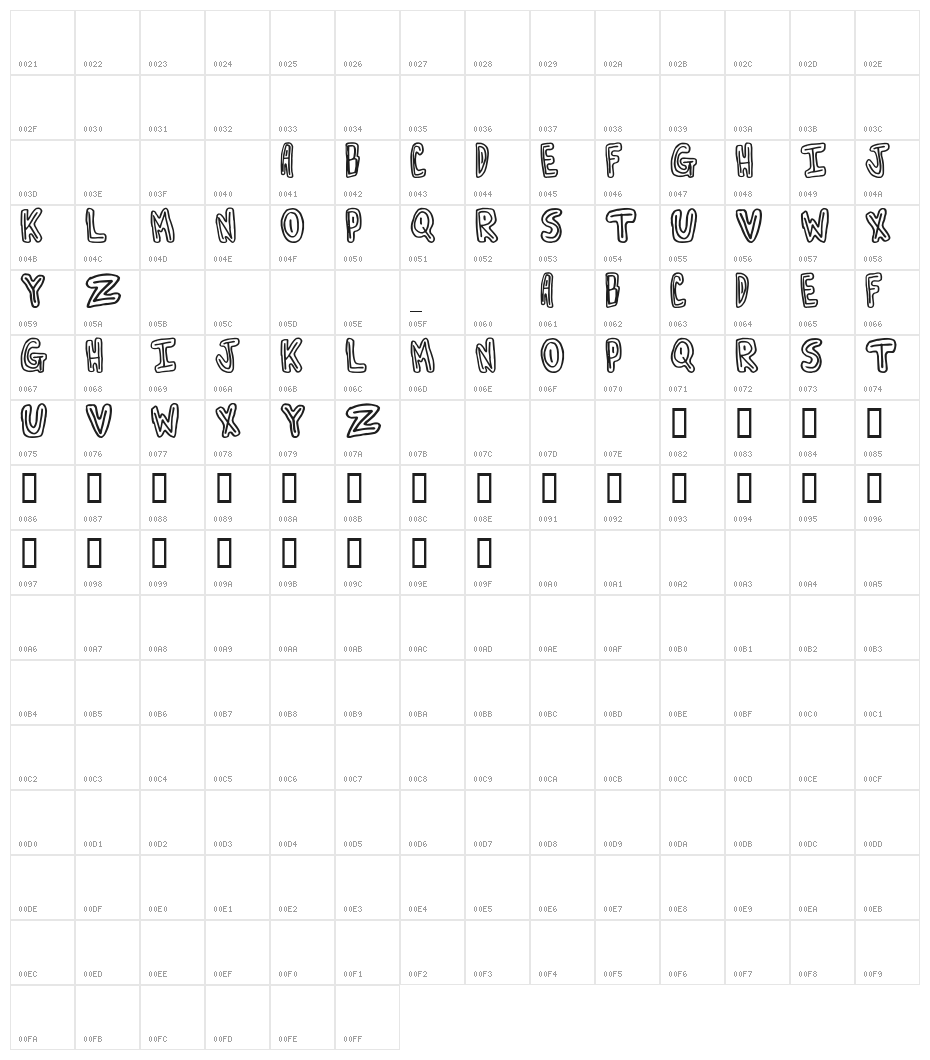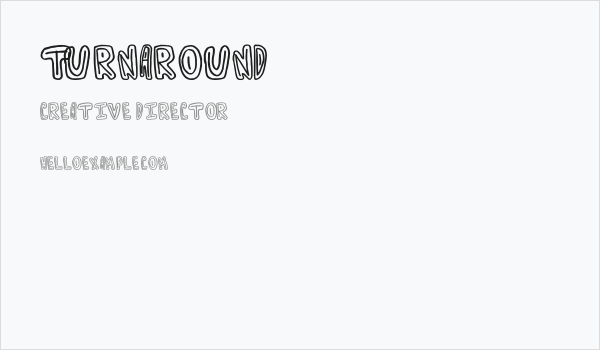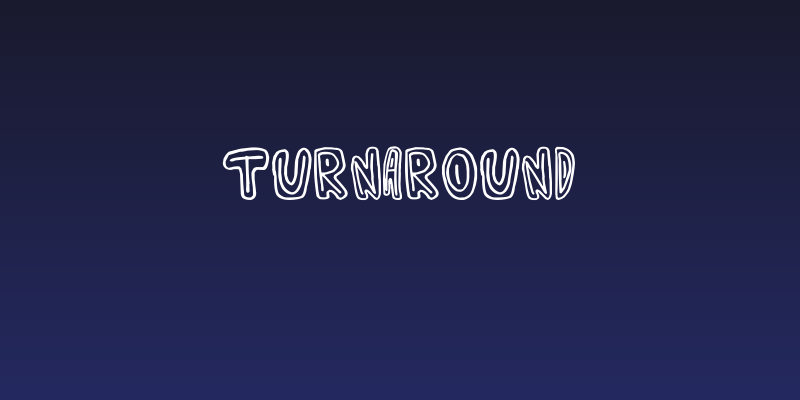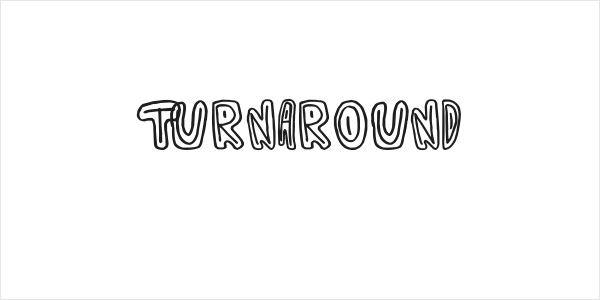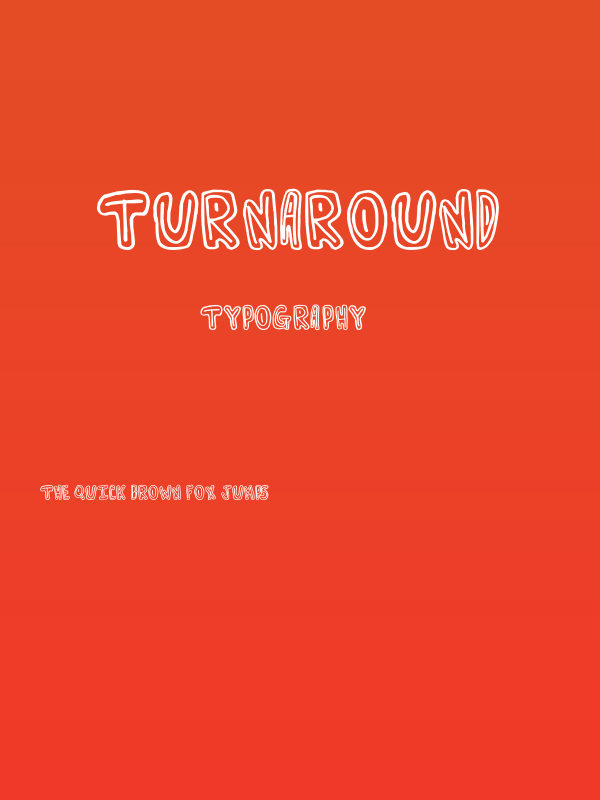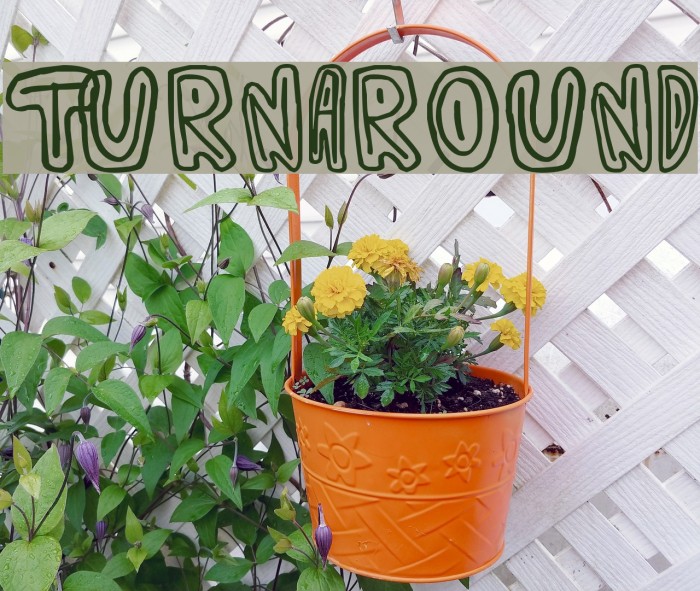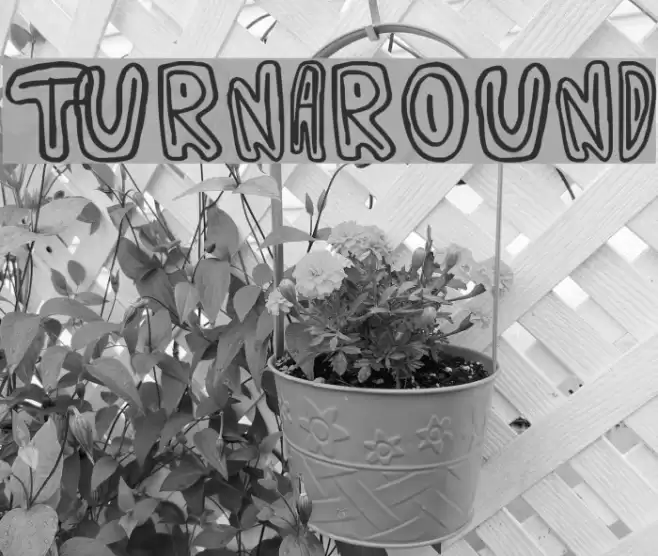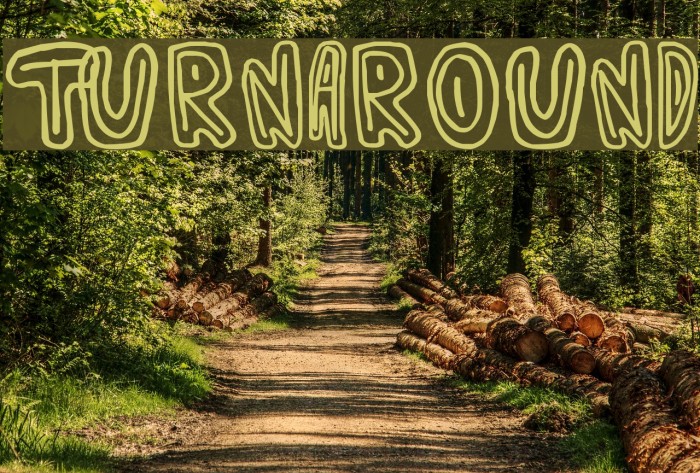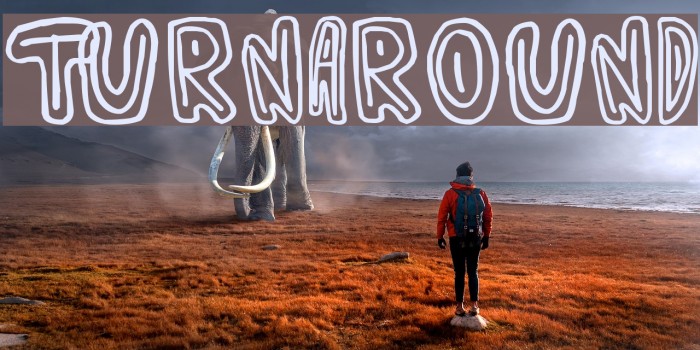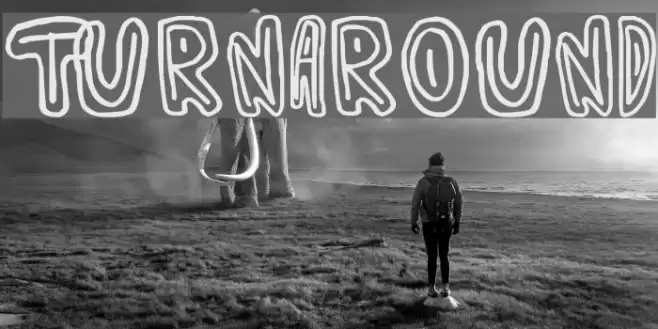
Turnaround Font
Turnaround Description
This playful and bold font features a hand-drawn style with a thick outline that gives it a cartoonish and lively appearance. The letters are uppercase and have a slightly irregular shape, adding to the whimsical and informal feel. The strokes are consistent in width, providing a uniform look despite the casual design. This font is perfect for projects that require a fun and approachable aesthetic, such as children's books, comic strips, or playful branding materials. Its unique style makes it stand out, ensuring that any text set in this font will capture attention and convey a sense of creativity and fun.
| Overall Style | Playful, Cartoonish, Hand-drawn |
| Proposed Projects | Ideal for children's books, comic strips, playful branding, and creative posters. |